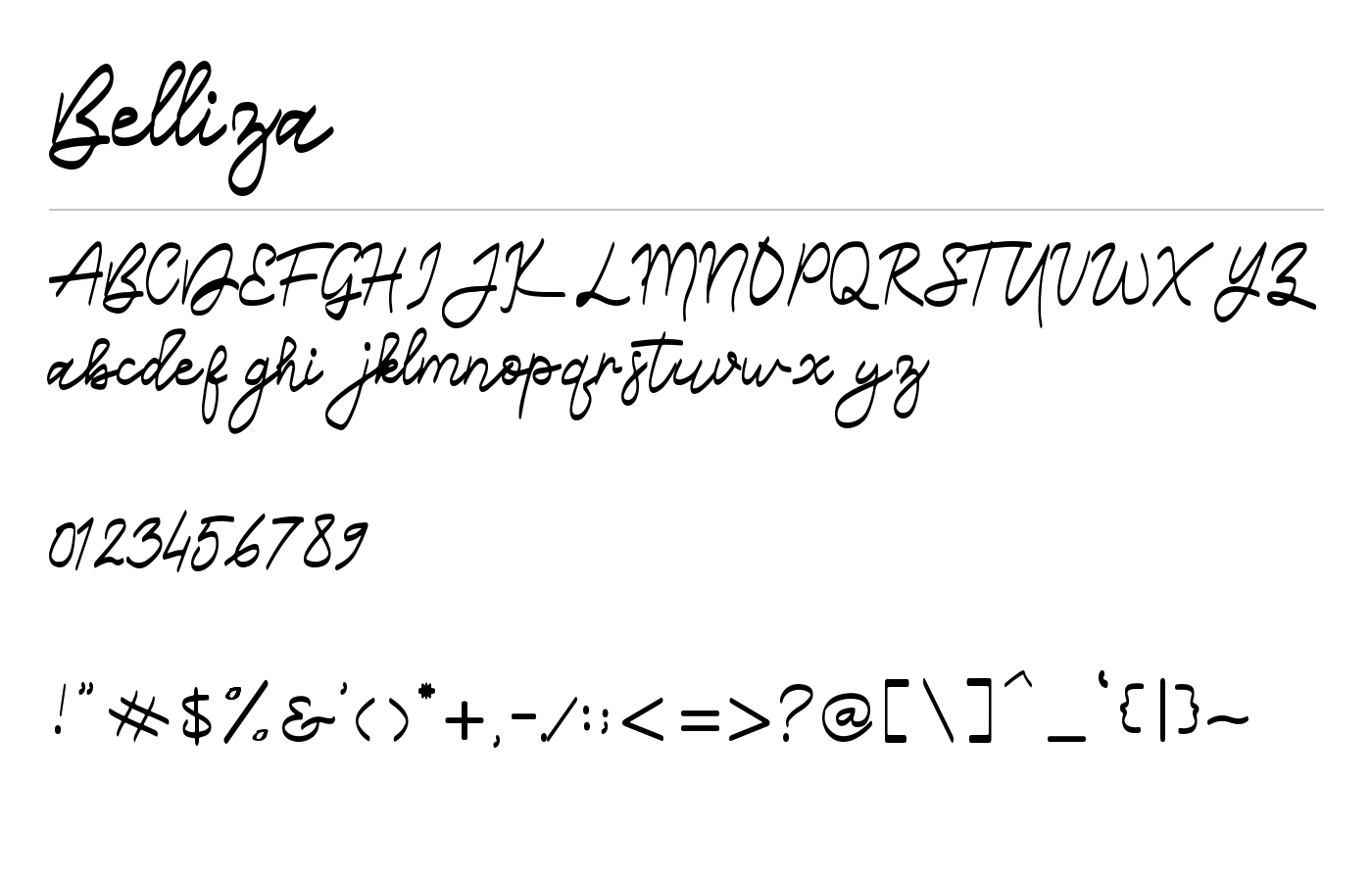
Belliza is a playful, handwritten script font with a casual and lively feel. Its smooth, slightly irregular strokes create an inviting and personal touch, making it perfect for creative projects, informal branding, and designs that want to convey warmth and friendliness. This font works well in logos, invitations, and social media graphics where a natural, hand-drawn look is desired.
Belliza Font
About Belliza Font
| Designer | MUFONT 2018 |